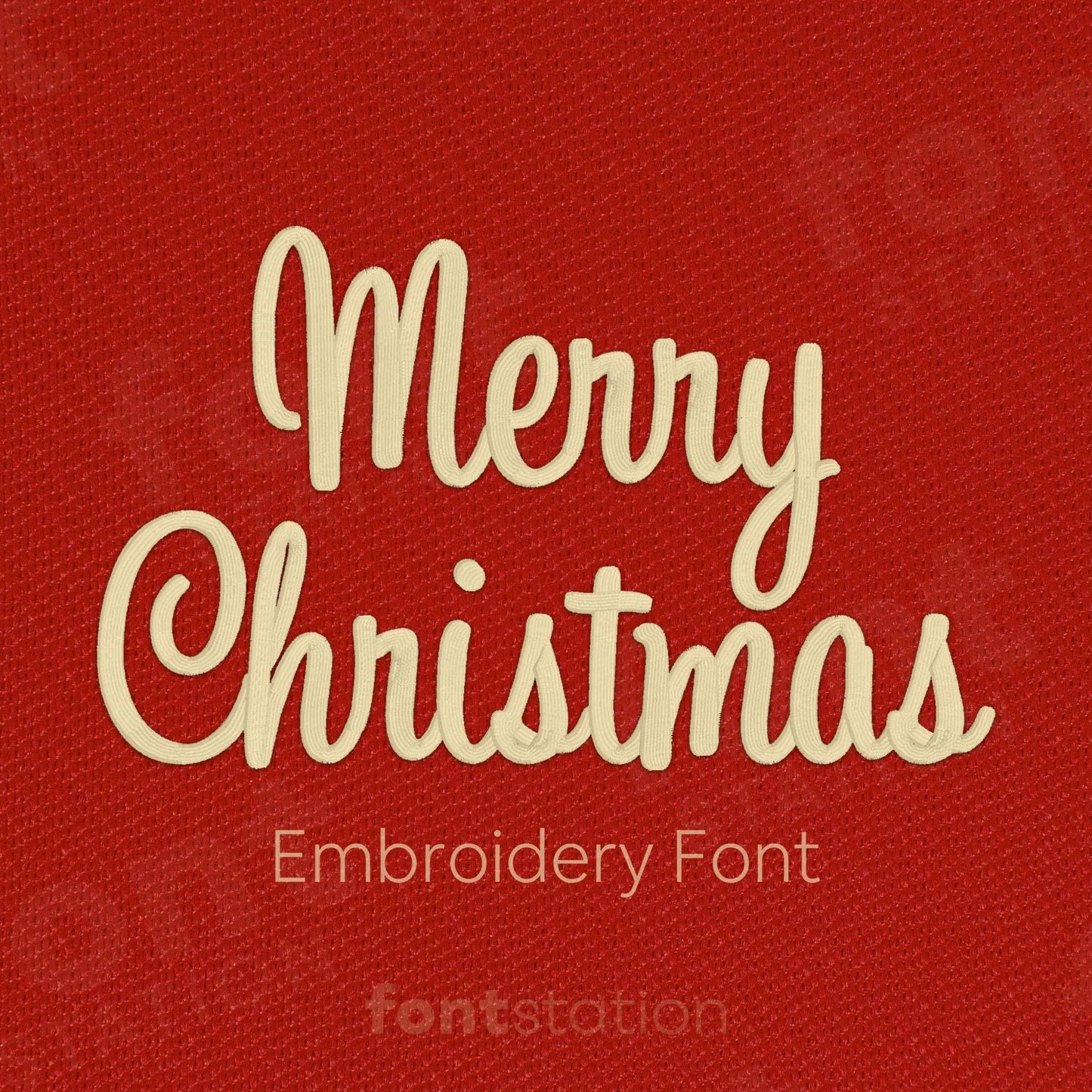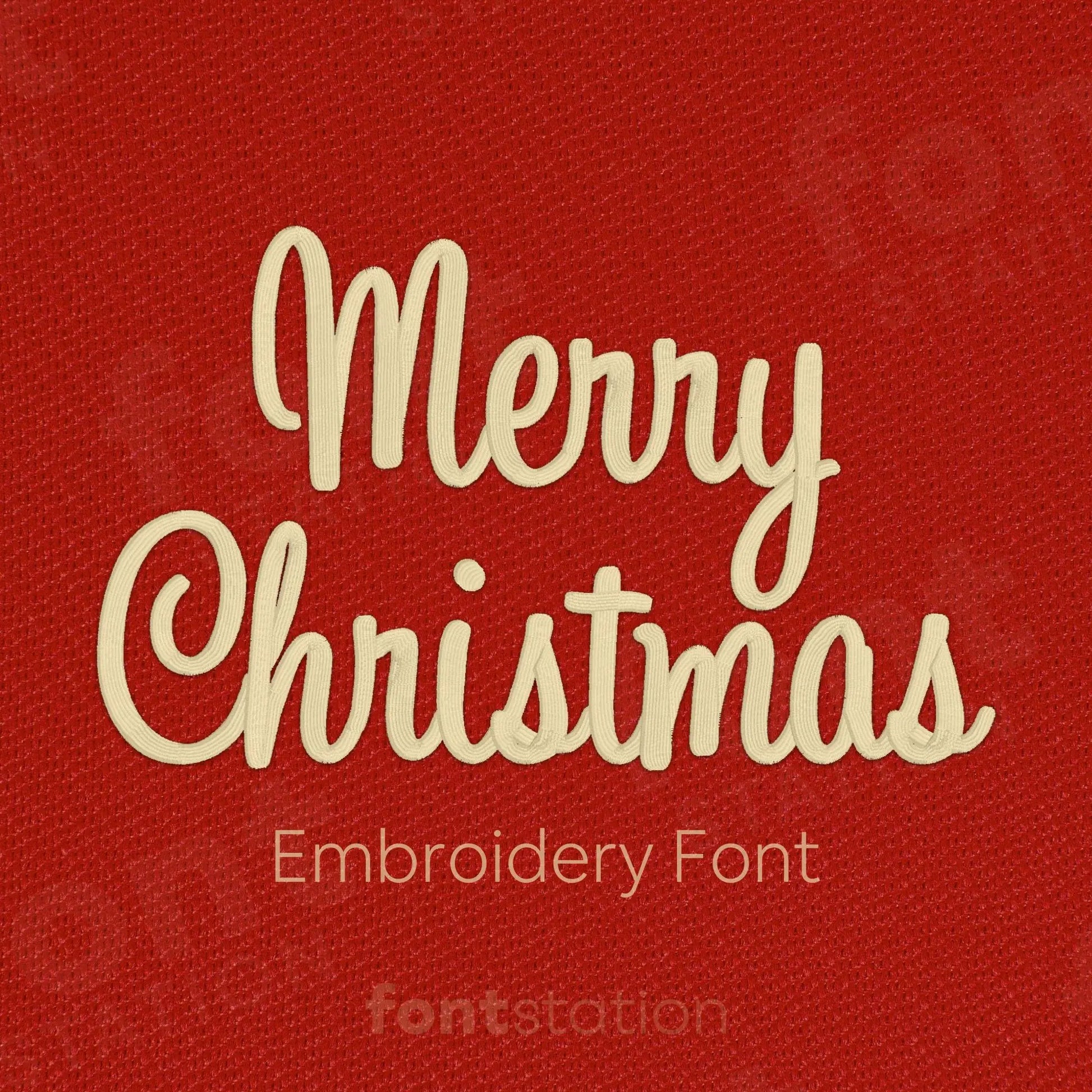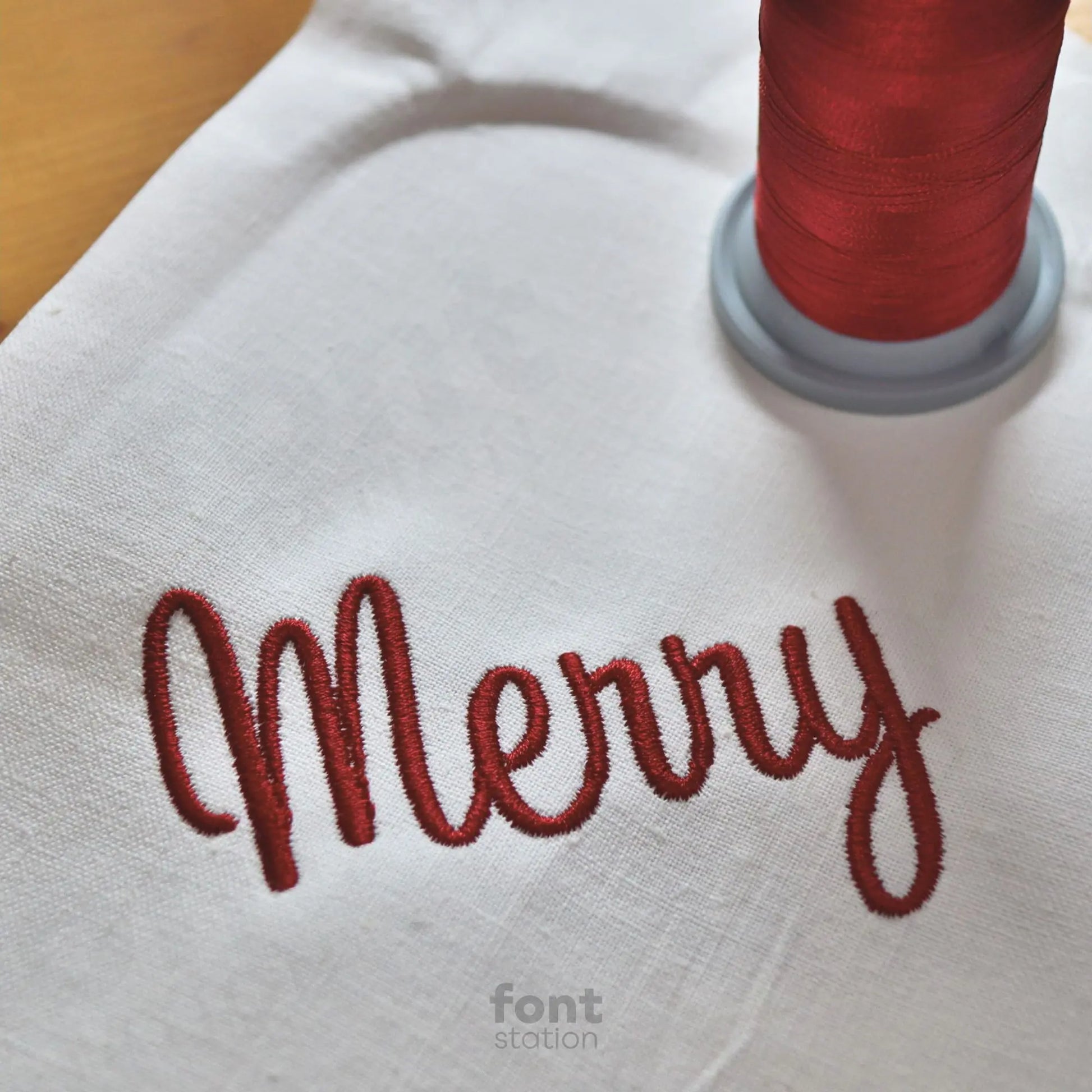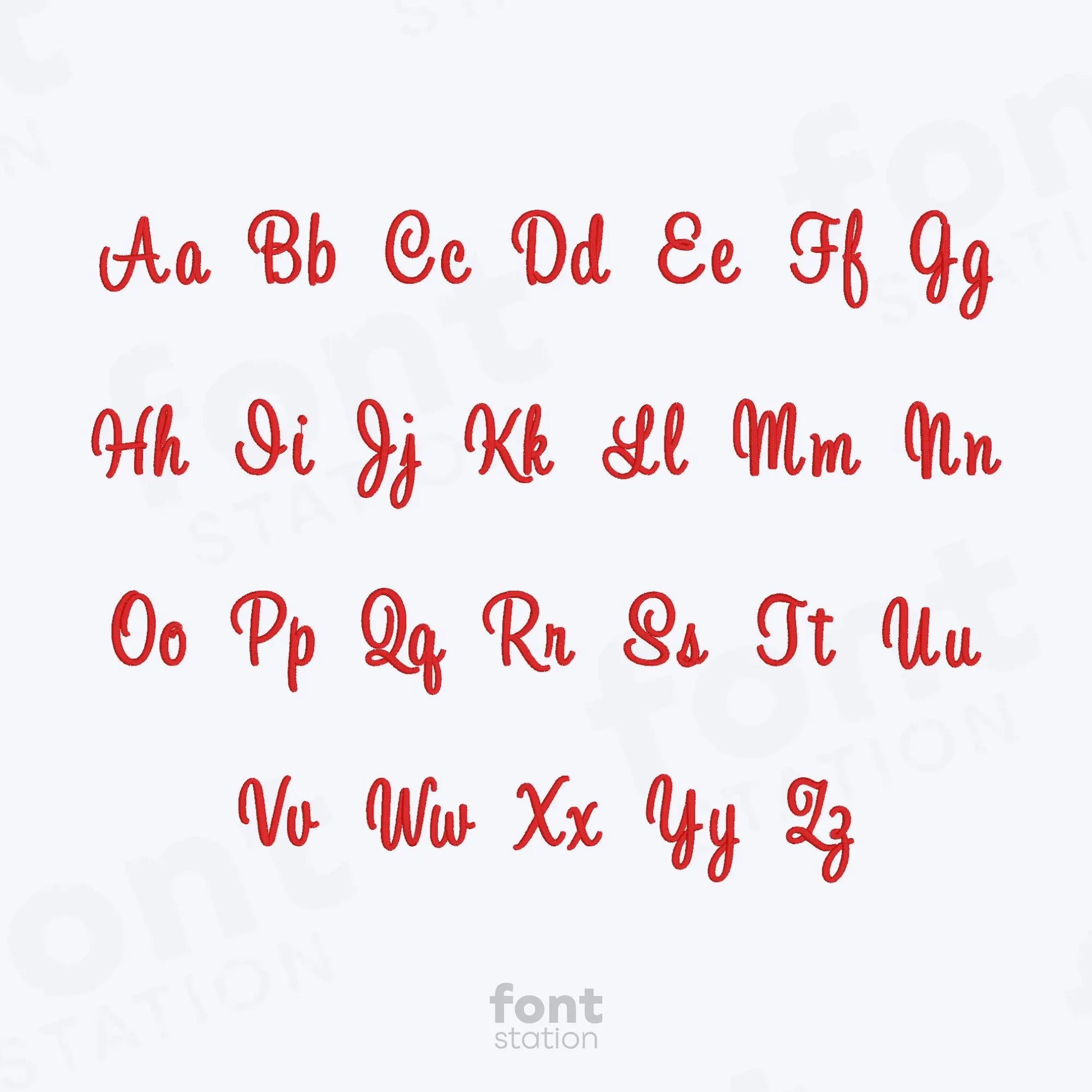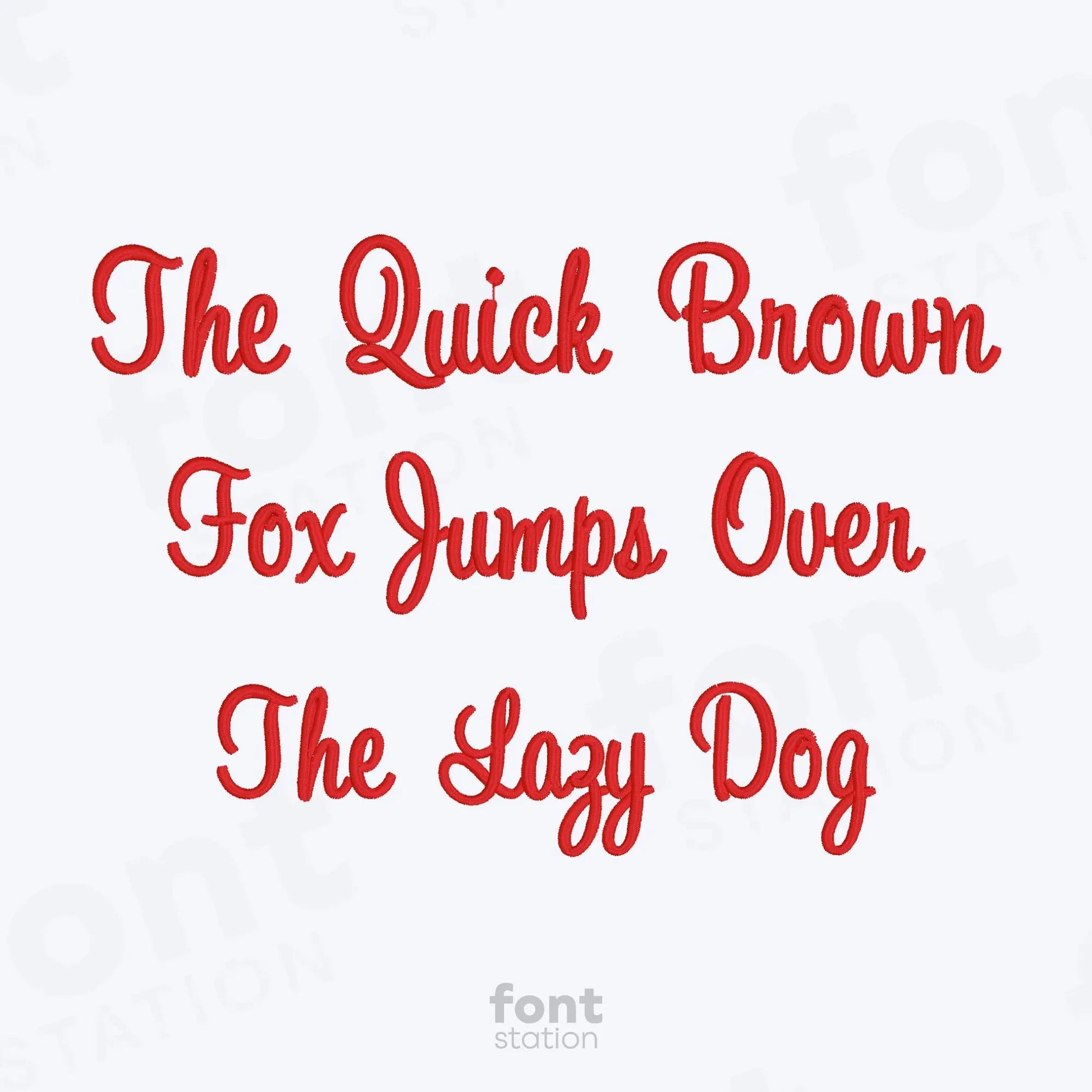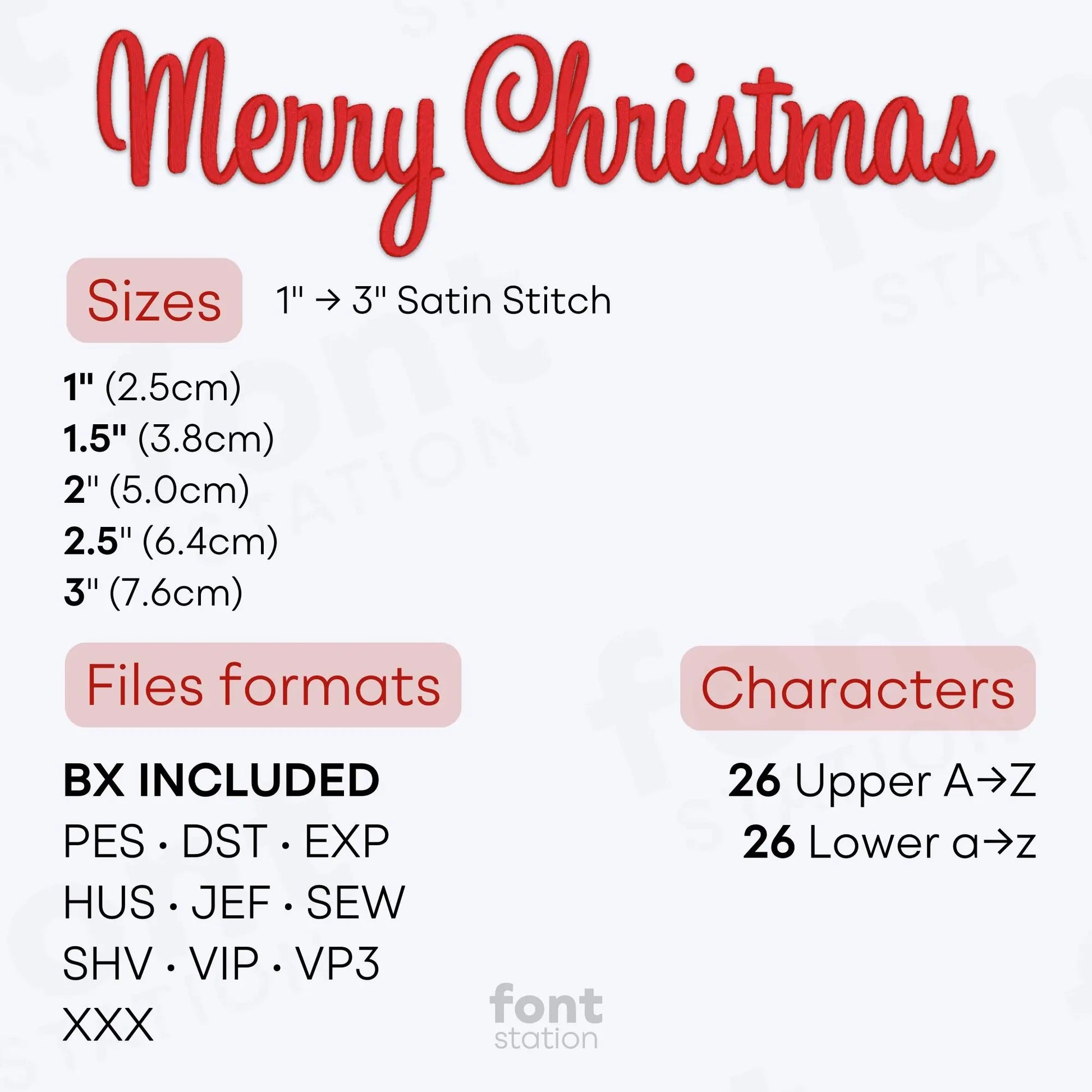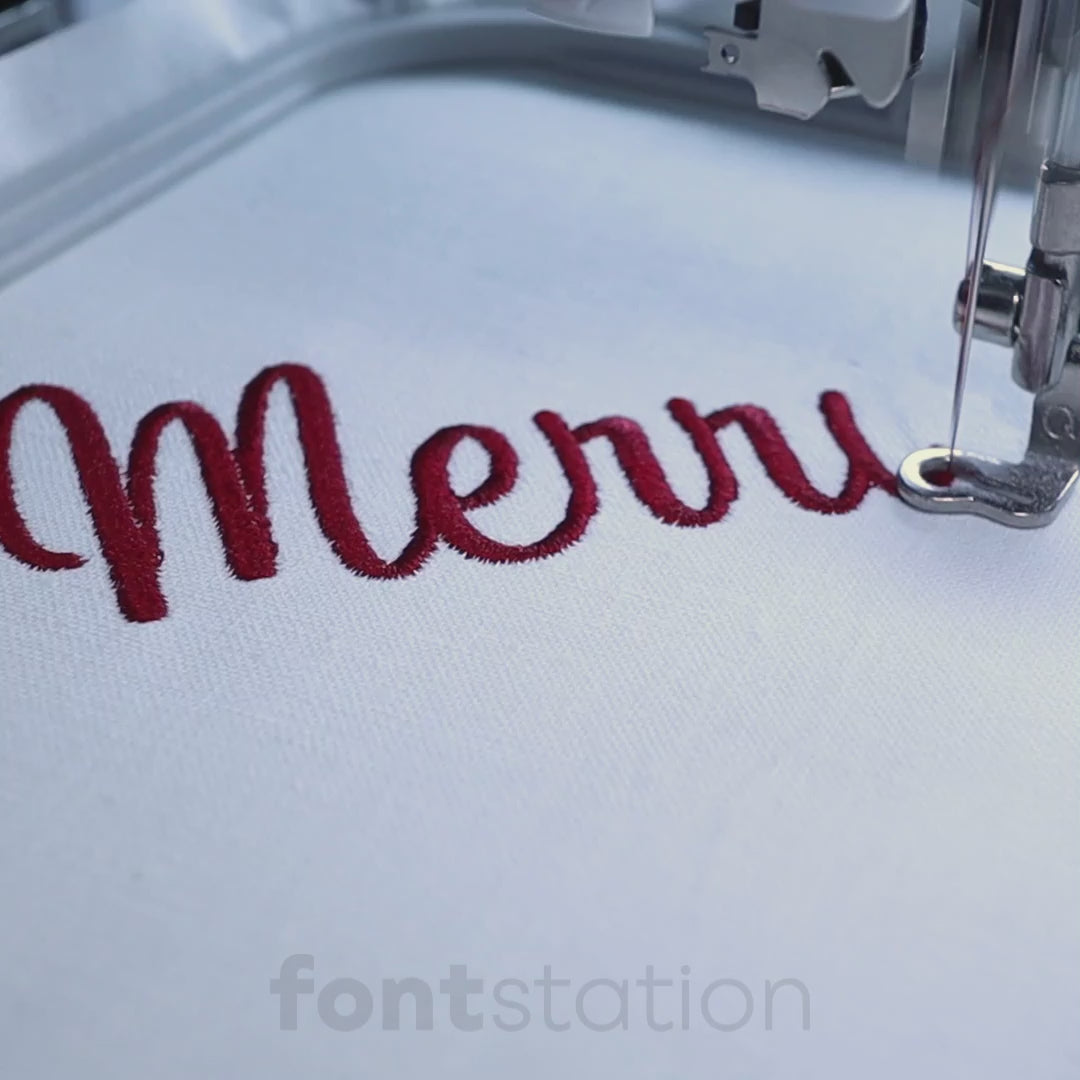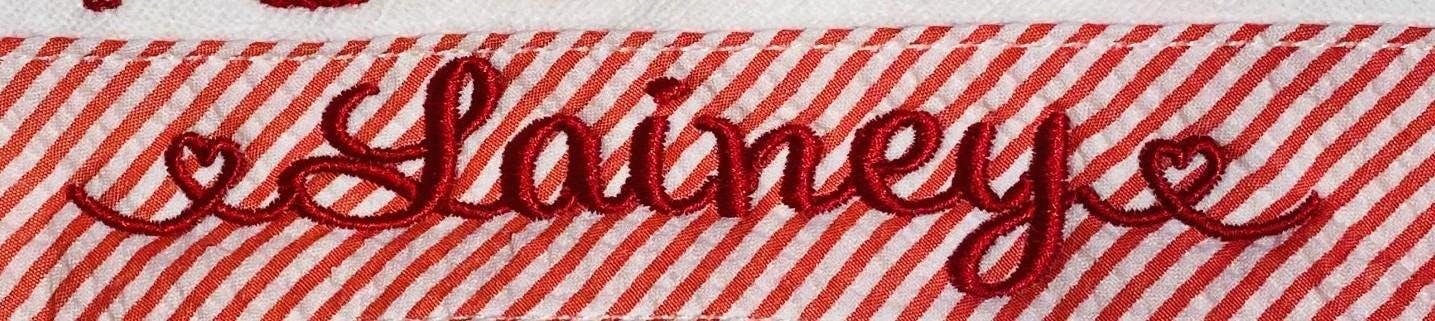
Merry Christmas Embroidery Font
Introducing our Merry Christmas embroidery font, a festive cursive alphabet perfect for holiday designs. These cheerful letters stitch beautifully on any embroidery machine, making them ideal for your next seasonal embroidery project.
About the Merry Christmas Embroidery Font
Celebrate the season with our Merry Christmas embroidery font, a festive cursive alphabet for holiday embroidery designs.
The Merry Christmas embroidery font features a cheerful, flowing cursive alphabet that’s perfect for holiday gifts, decorations, and seasonal projects. These festive embroidery letters add warmth and charm to stockings, tree skirts, napkins, and more. Professionally digitized for smooth stitching on any embroidery machine, this font is available in BX, PES, DST, JEF, EXP, VP3, and HUS formats. Add a cozy handmade touch to your Christmas designs with this must-have embroidery font.
This font stitched out on Christmas Stocking wonderfully! Love this font and would like to try other well digitized items from your shop.
The perfect font and it stitched out perfectly. No issues. I added the heart swirls to the the ends of the name.
Stitched out well very looks lovely
Stitched out as shown. Beautiful font. Thanks
I have used this font for several items and it’s stitched out perfectly every time!
This is now my favorite to use on Christmas stockings!
Sews out just as described
Good stitch out. Nice font
Stitched out beautifully on stocking! Didn't need knockdown stitches for the background because the satin stitched letters are nice and wide/thick! Stitching is slow, but this is good because the finished stitching is beautiful!
This font stitched out beautifully for Christmas stockings. I love it!
love this font! looks great and works well